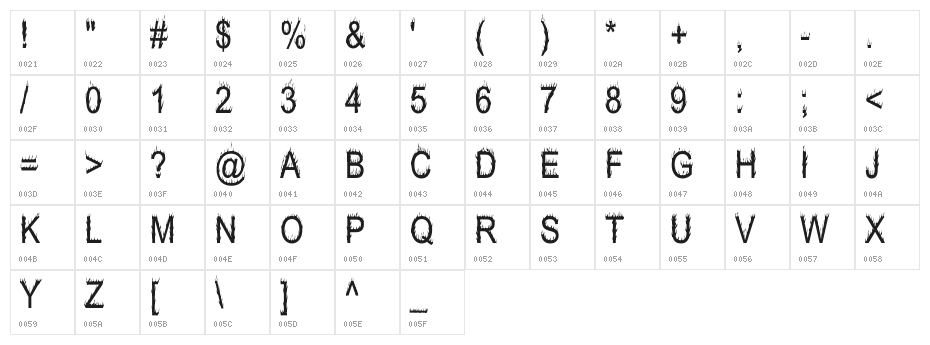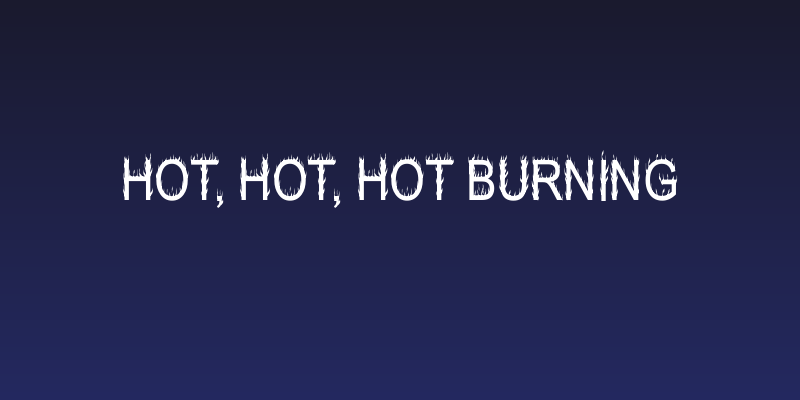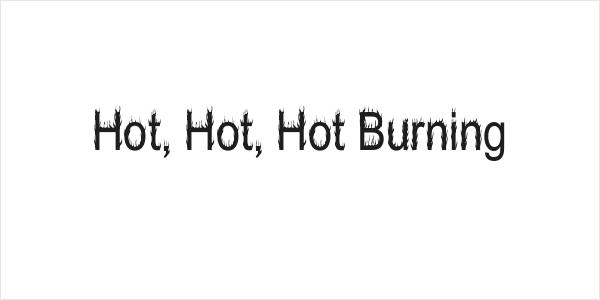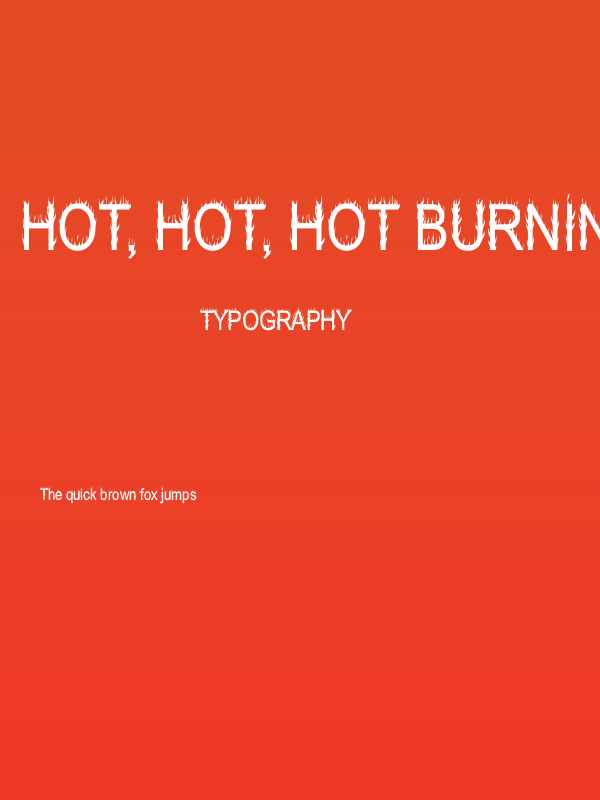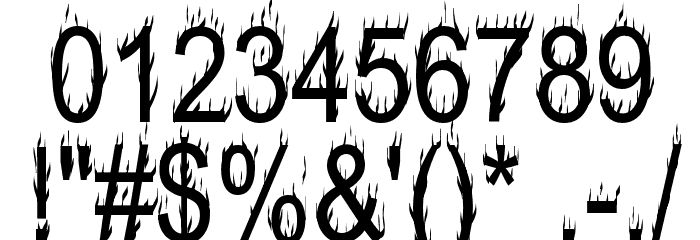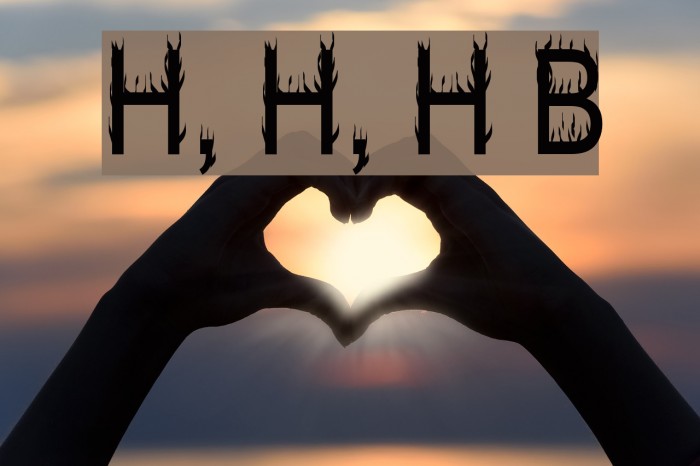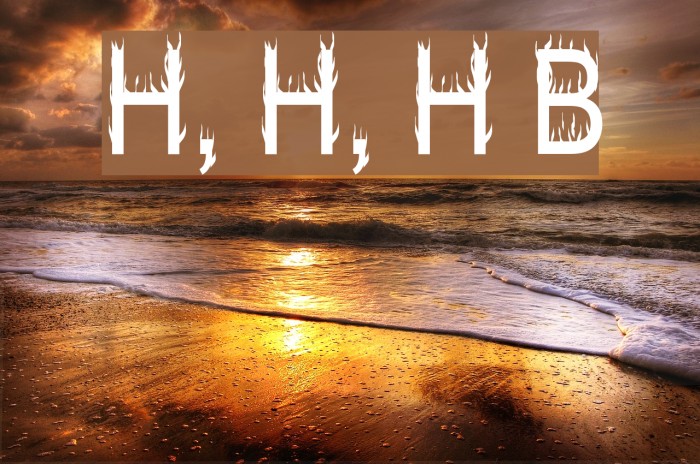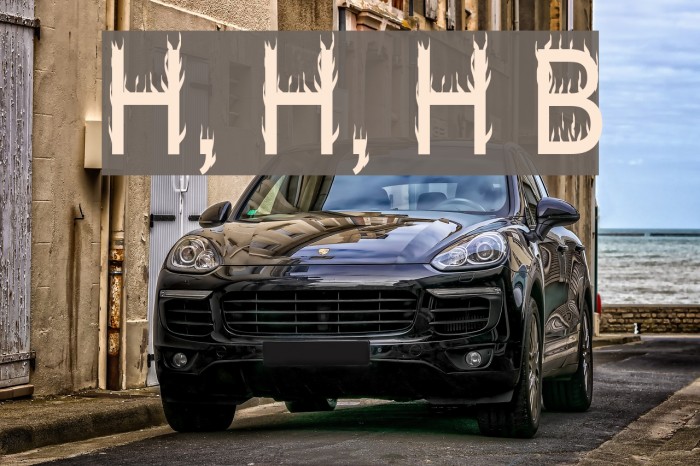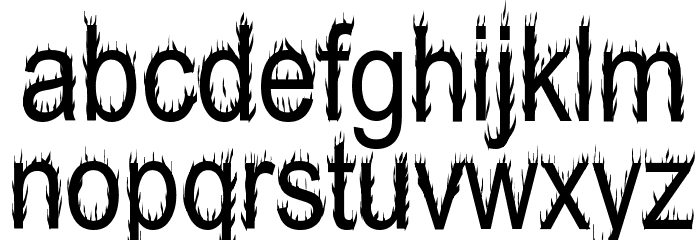
Hot, Hot, Hot Burning Font
Hot, Hot, Hot Burning Description
This font features a dynamic and fiery design, with each character appearing as if it is engulfed in flames. The letters are bold and striking, with jagged edges that mimic the unpredictable nature of fire. This creates a sense of movement and intensity, making it ideal for attention-grabbing designs. The uppercase and lowercase letters maintain a consistent style, with the flames adding a unique texture to the otherwise solid letterforms. Numbers and special characters are equally dramatic, ensuring a cohesive look across all text elements.
| Proposed Projects | Ideal for projects needing a dramatic flair, such as event posters, music album covers, or branding for extreme sports. |